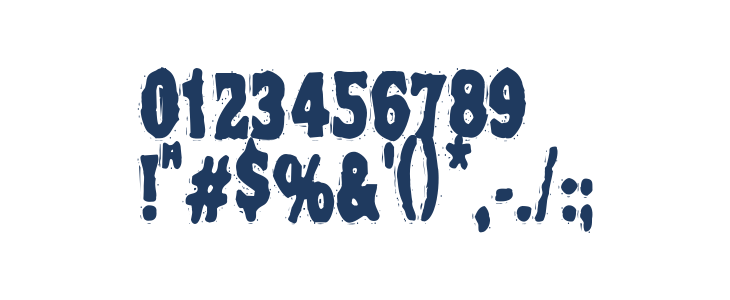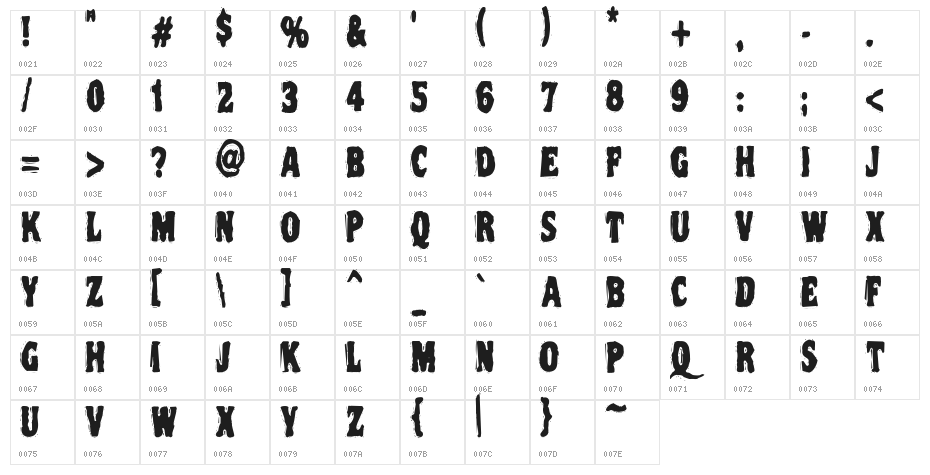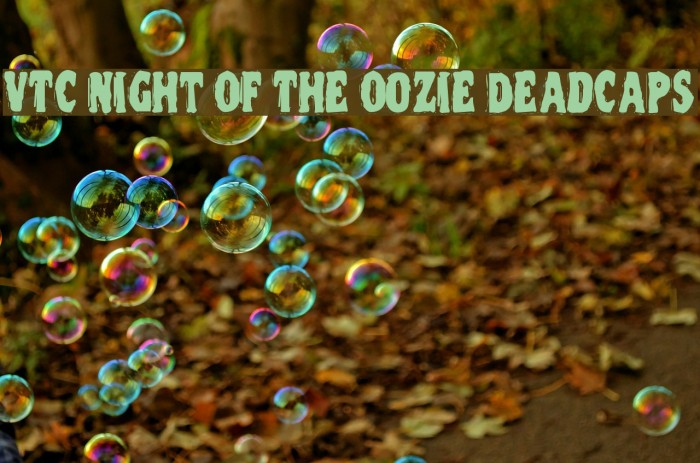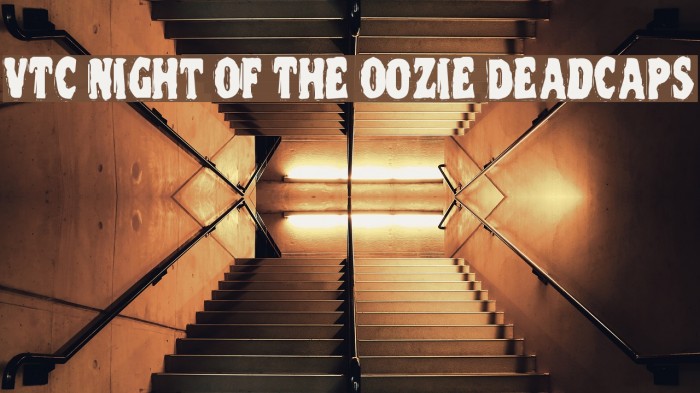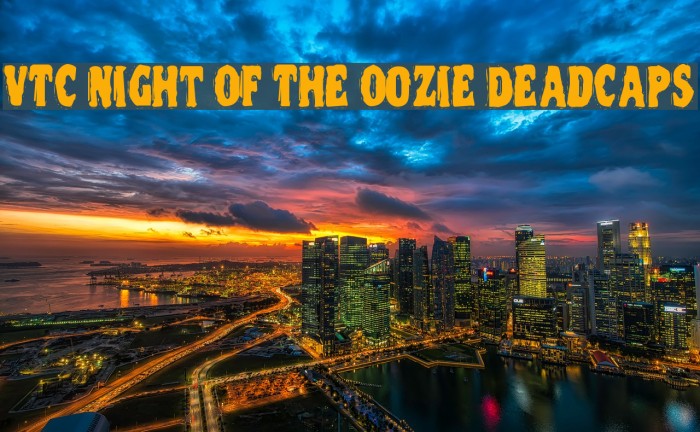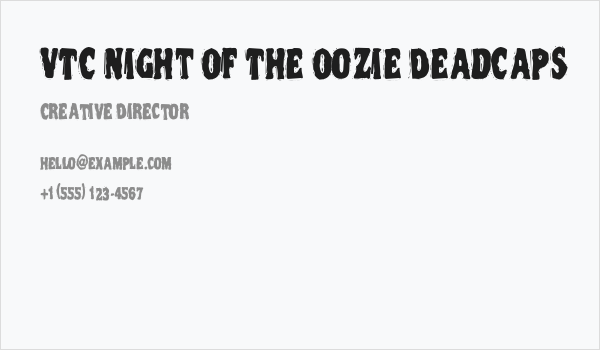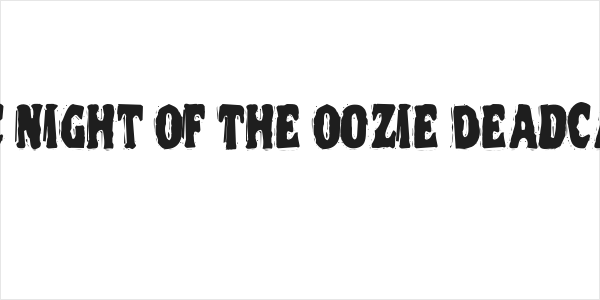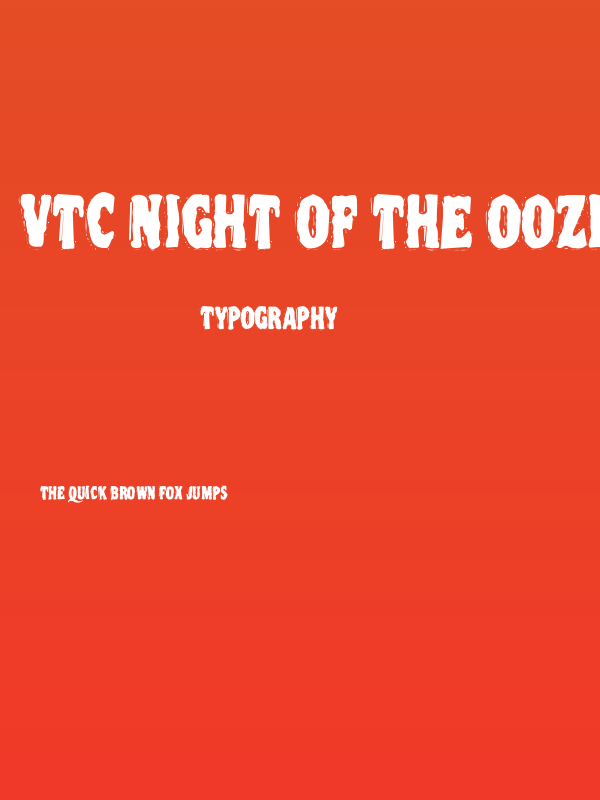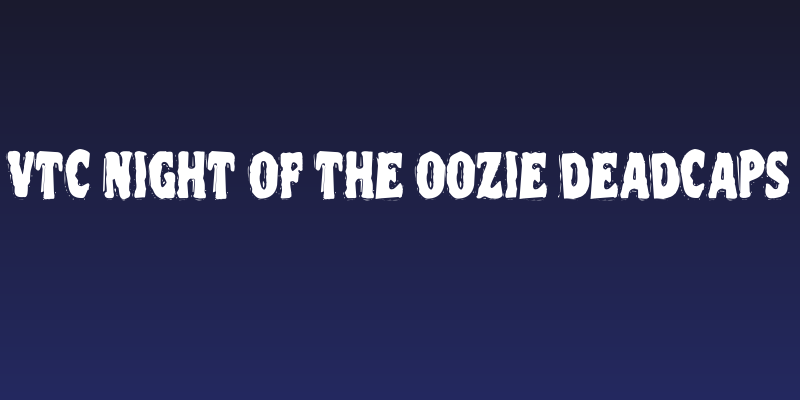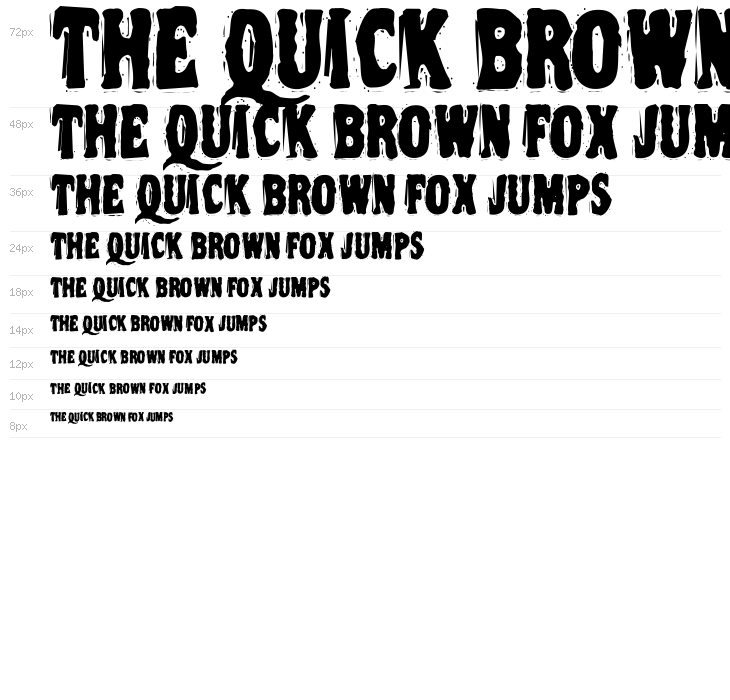
VTC Night Of The Oozie DeadCaps Font
VTC Night Of The Oozie DeadCaps Description
This font features a bold and playful design with a spooky, dripping effect reminiscent of horror or Halloween themes. The characters are thick and irregular, giving a sense of movement and fluidity. The uppercase and lowercase letters maintain a consistent style, with exaggerated curves and uneven edges that enhance the eerie aesthetic. Numbers and special characters follow the same design principles, ensuring a cohesive look across all glyphs. The font's unique style makes it stand out, perfect for creative projects that require a touch of the macabre or whimsical horror.
| Proposed Projects | Ideal for Halloween-themed posters, horror movie titles, spooky event invitations, and creative graphic design projects. |